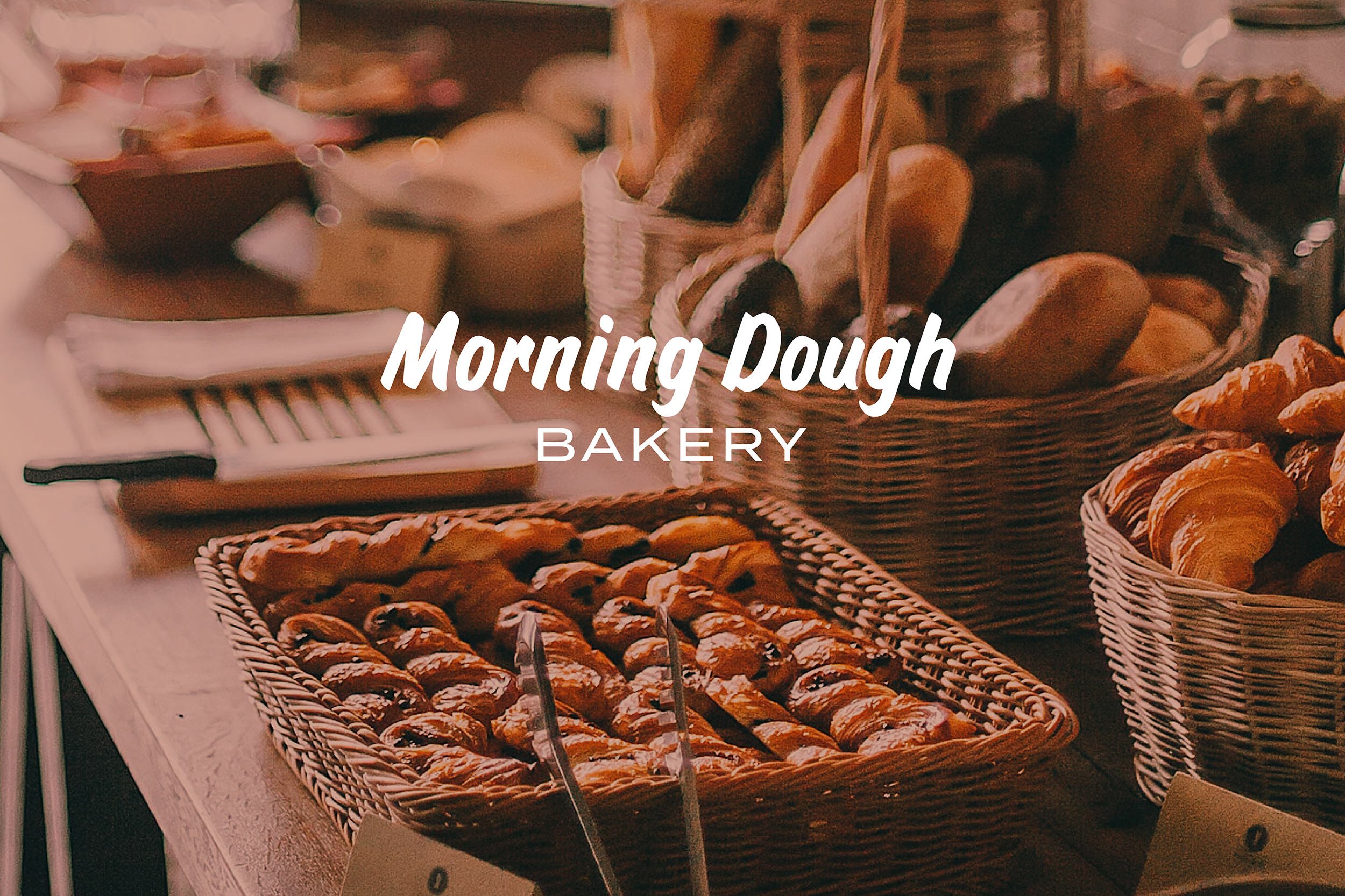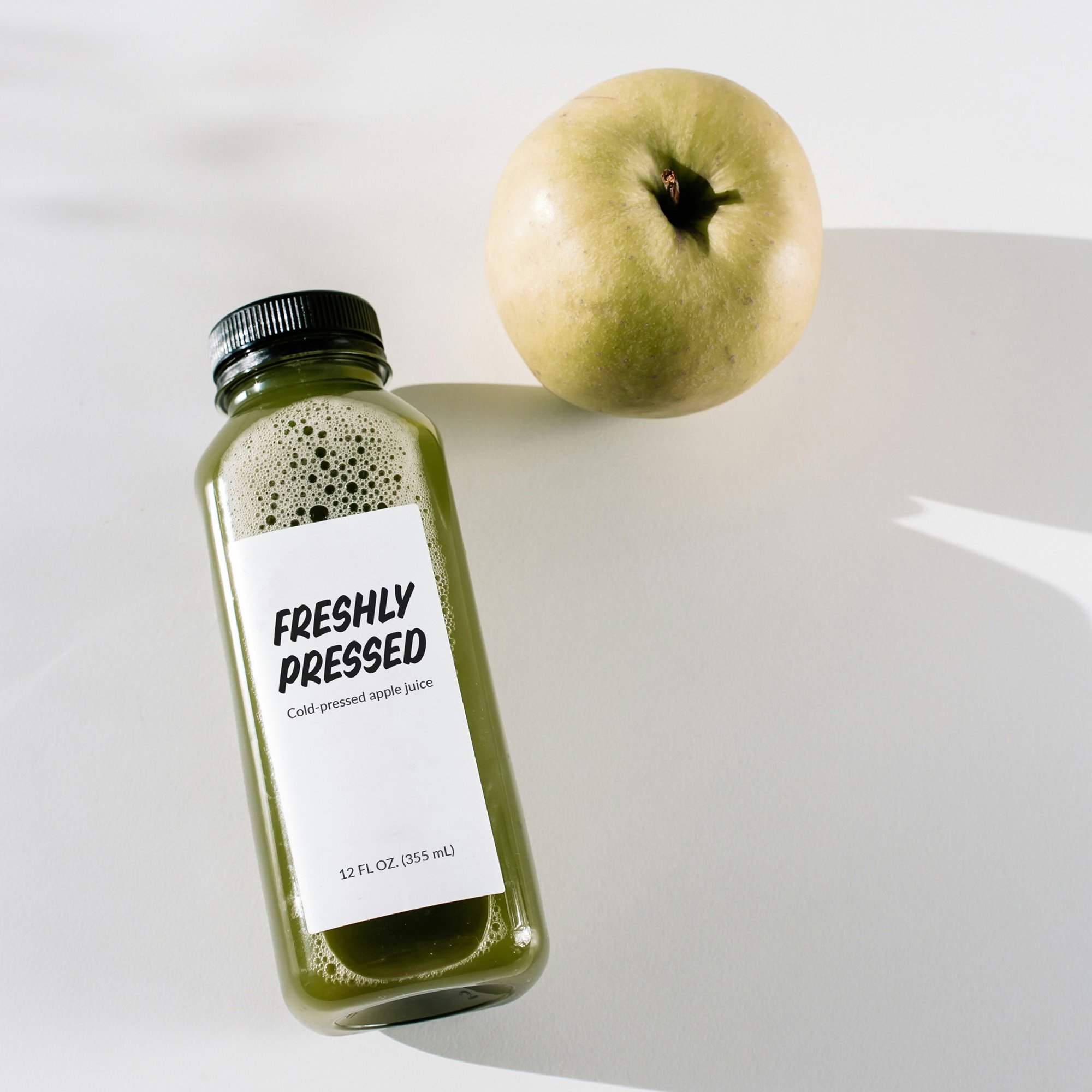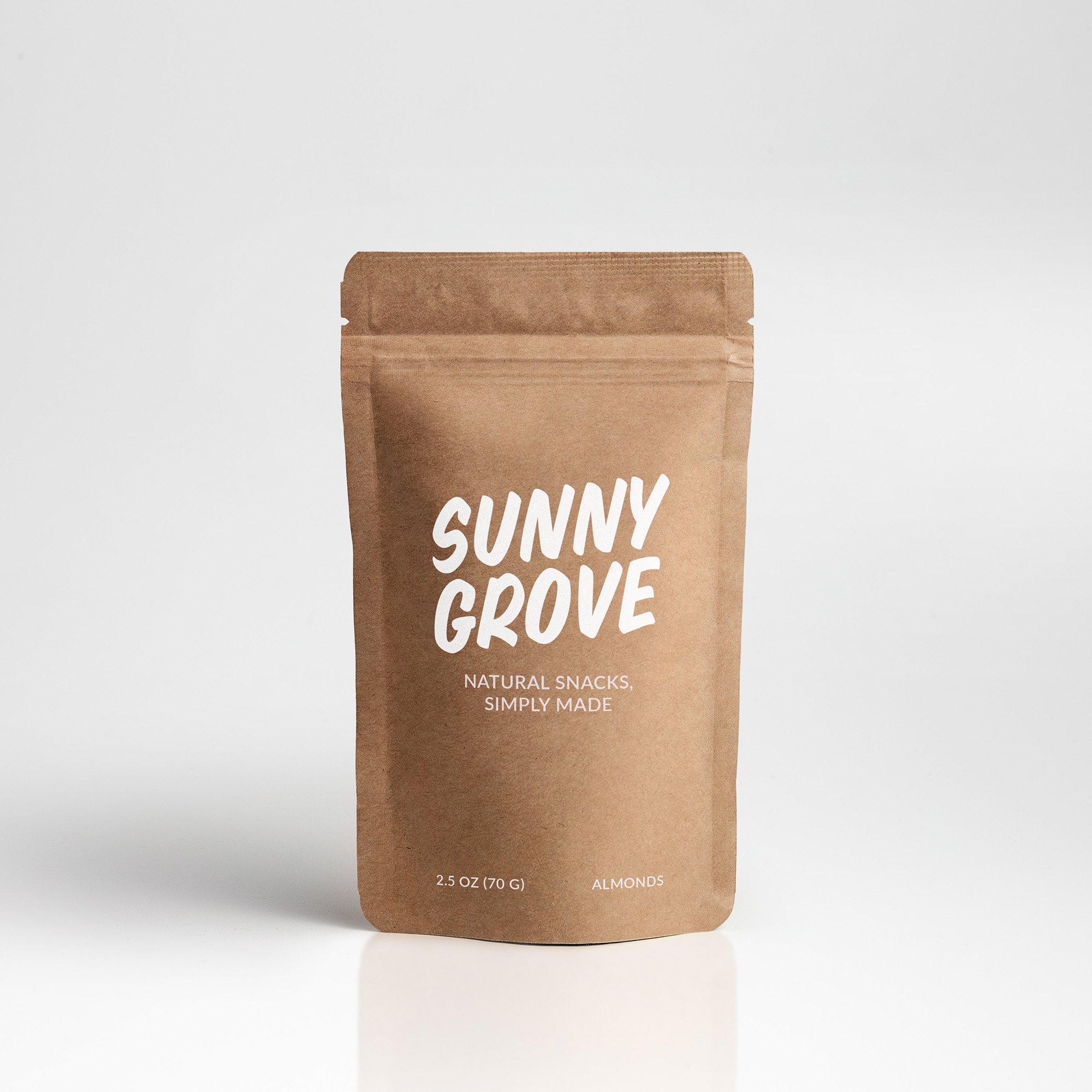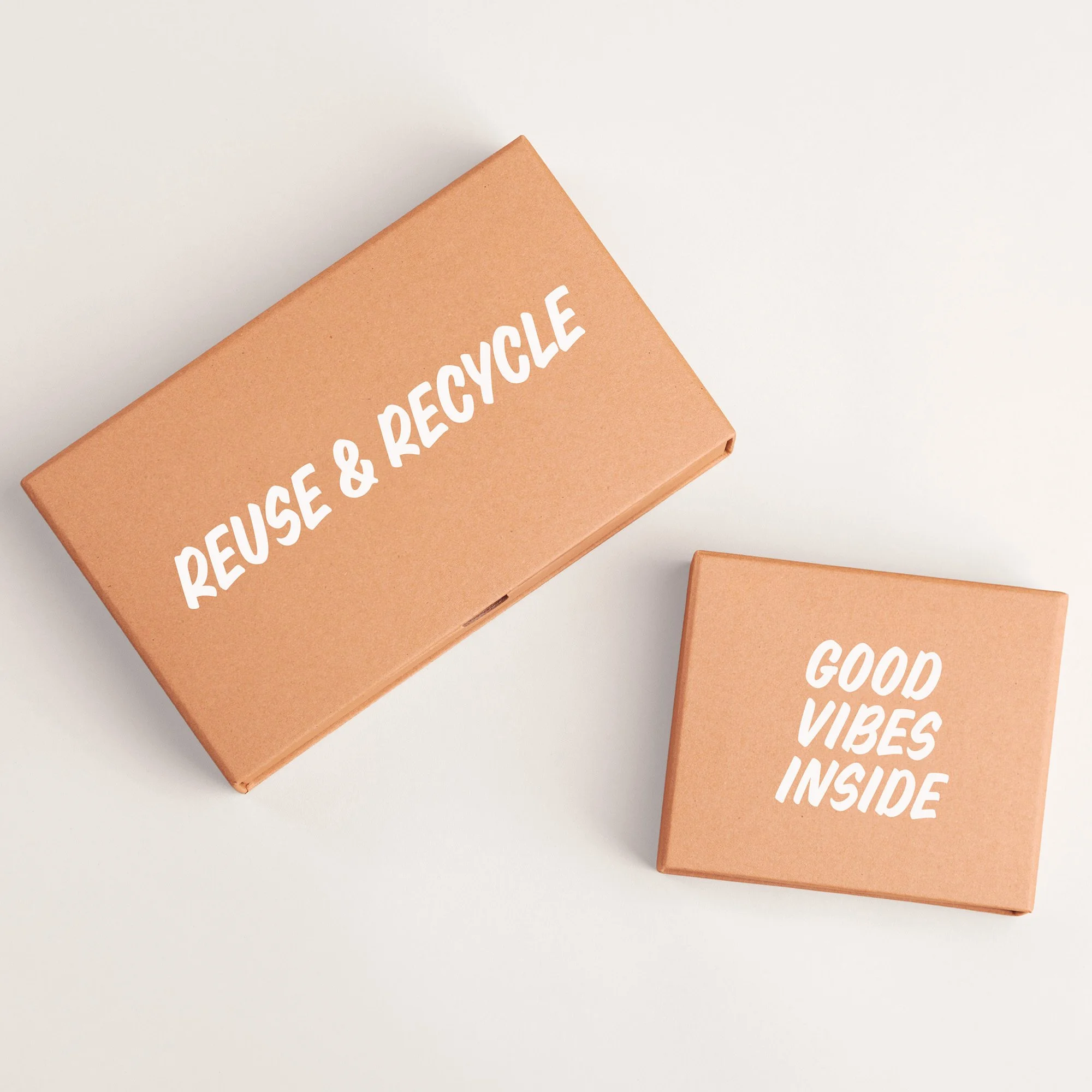
Broadway Brush Typeface
An expressive display typeface with elegant curves and confident rhythm.
Broadway is a modern brush font with a relaxed, nostalgic character. Its expressive strokes and natural rhythm make it well suited for logos, branding, social media graphics, and advertising. Designed for both print and digital use, Broadway brings energy and personality to projects such as packaging, posters, and promotional materials.
FT TT TY ff ffi fh fi fl ft fw fy fz tf tt ty tz xy
Ligatures